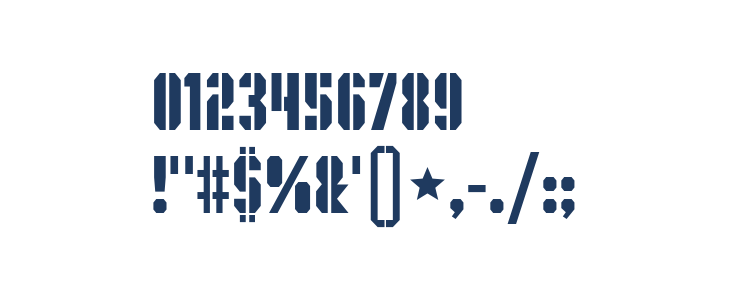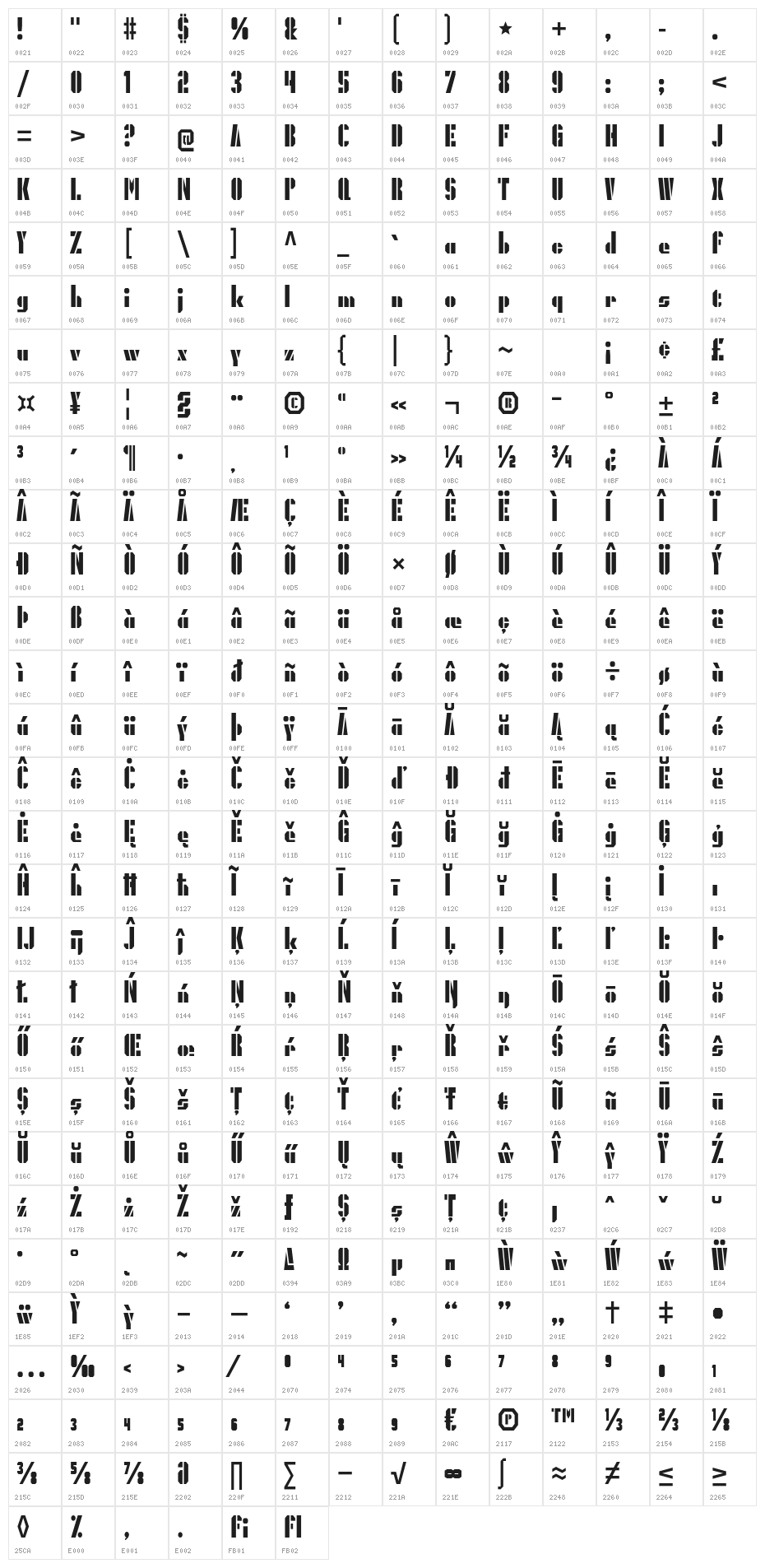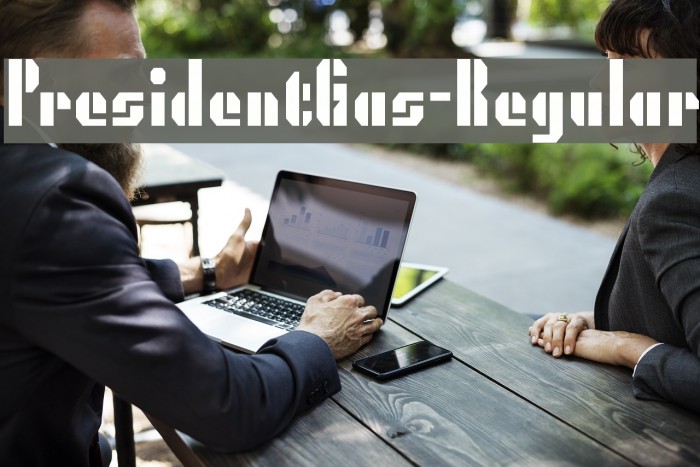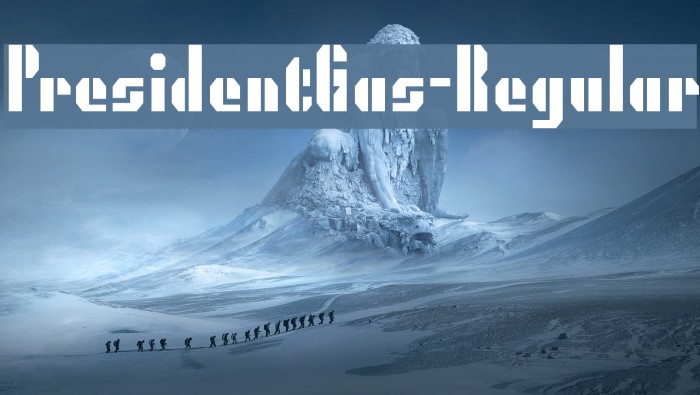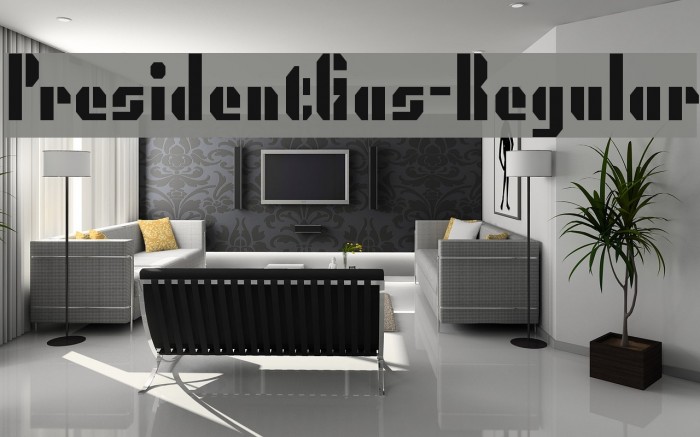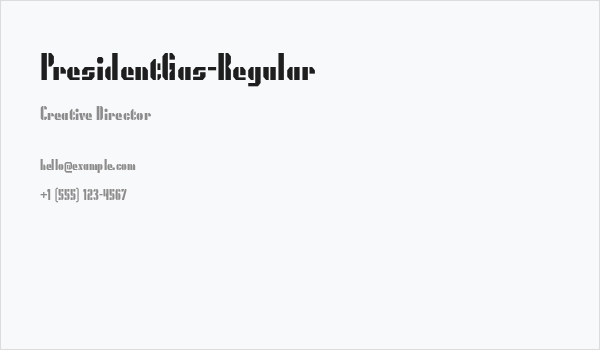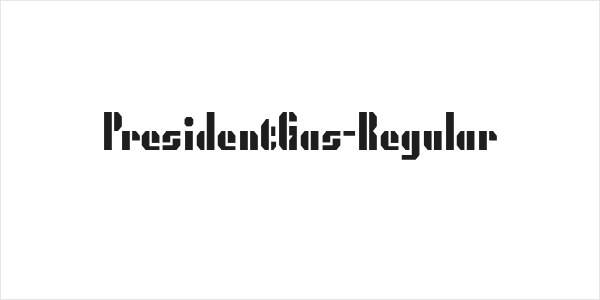
PresidentGas-Regular Font
PresidentGas-Regular Description
This font features a bold, geometric design with a strong, impactful presence. The characters are constructed with sharp angles and straight lines, creating a stencil-like appearance. The uppercase letters are particularly striking, with a uniform height and width that convey a sense of strength and stability. The lowercase letters maintain the same geometric style, ensuring consistency across the typeface. Numbers and special characters are designed to match the bold and angular aesthetic, making this font ideal for attention-grabbing headlines and titles. Its unique style is both modern and reminiscent of industrial design, making it versatile for various creative projects.
| Overall Style | Modern, Industrial |
| Proposed Projects | Ideal for posters, branding, packaging, and any project requiring a strong, modern aesthetic. |